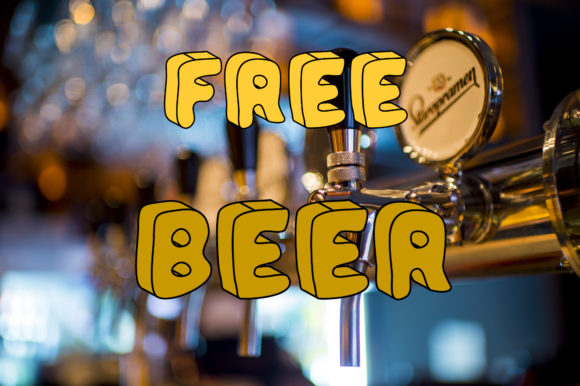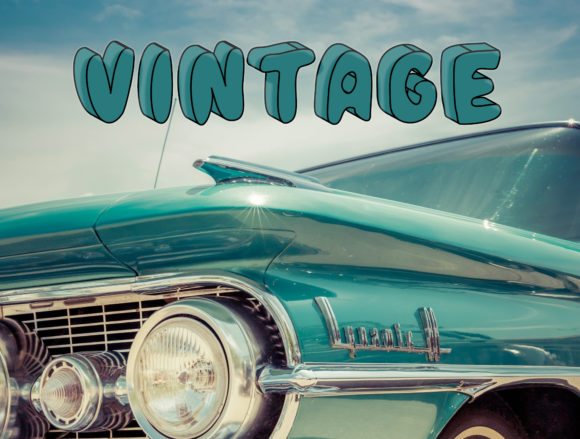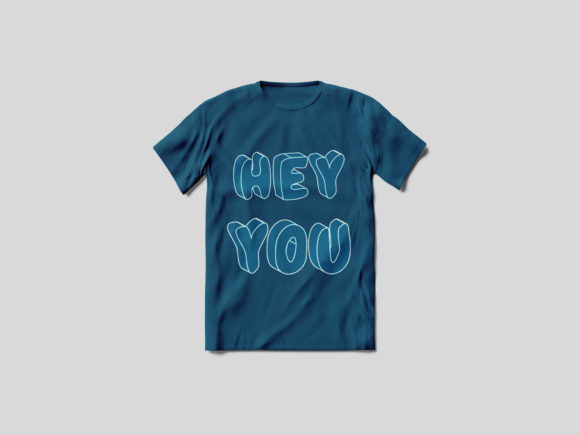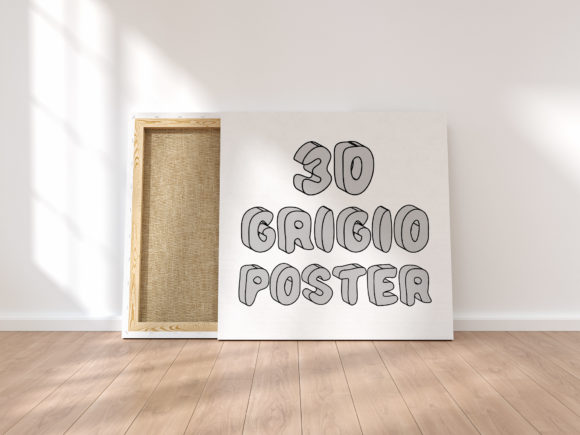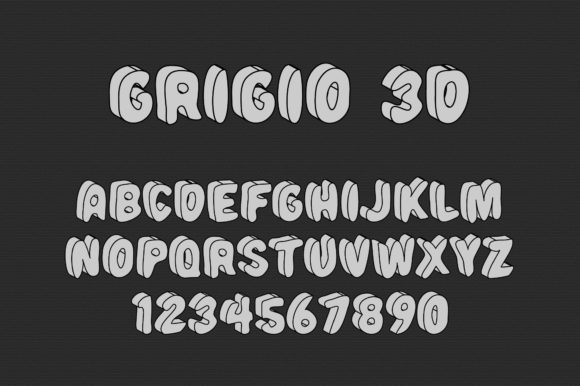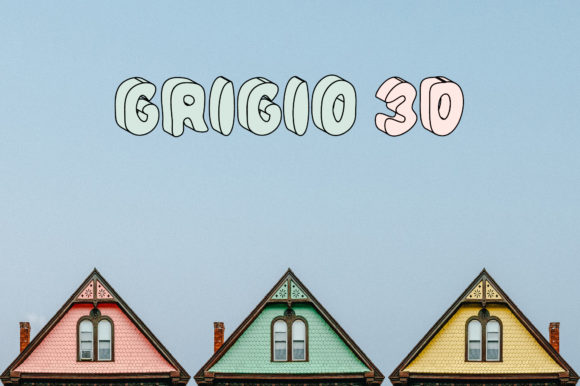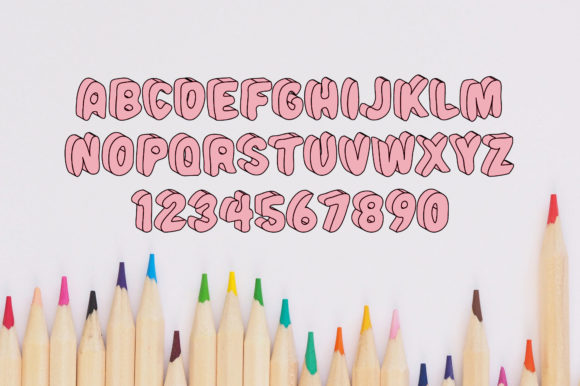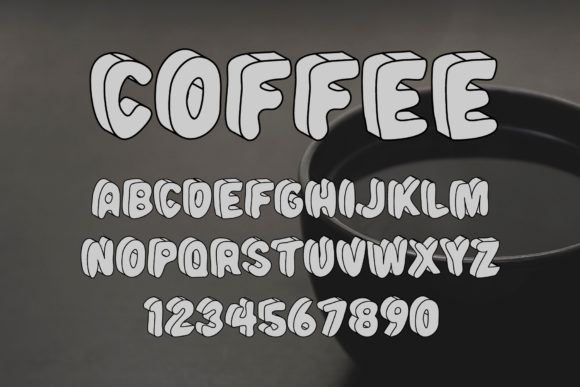
About Grigio Font
Grigio is a casual and captivating 3D color font that adds a playful touch to your designs. With its cartoon-like appearance and joyful vibe, this font has the power to elevate any design idea you can think of.
Whether you’re working on invitations, children’s books, logos, or social media graphics, Grigio brings a sense of fun and whimsy to your typography. Its casual style and vibrant colors make each letter pop, creating a delightful visual experience.
Embrace the joyful nature of Grigio and let it infuse your designs with energy and personality. This font is perfect for adding a touch of playfulness to any project, capturing the attention and imagination of your audience.
Unlock the creative potential of Grigio and watch as it transforms your design ideas into lively and captivating compositions. Let this casual and interesting 3D color font be the key to unlocking a world of joy in your design journey.